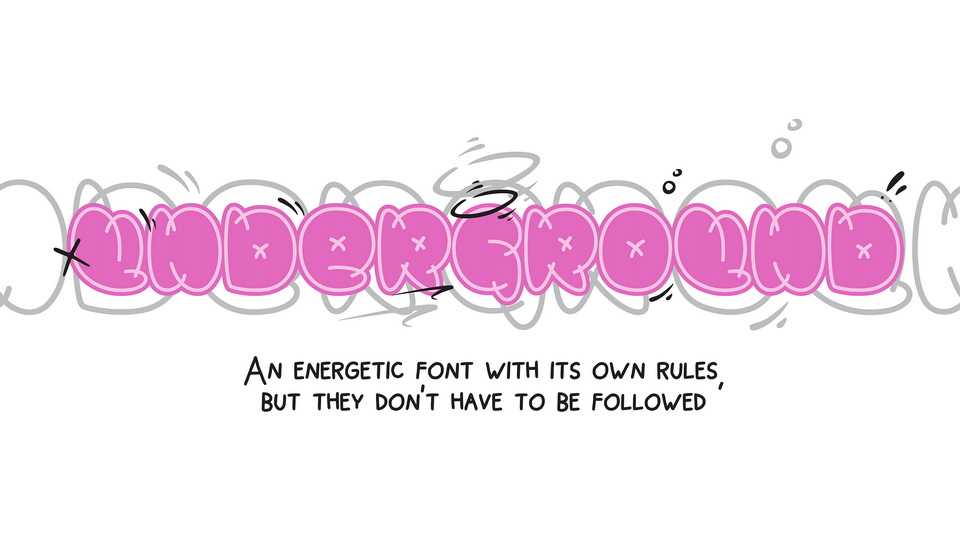
Download MYKA Underground font, a vibrant rounded decorative typeface inspired by graffiti culture. This font is impossible not to notice.
Designer: Kamila Mukhtarova